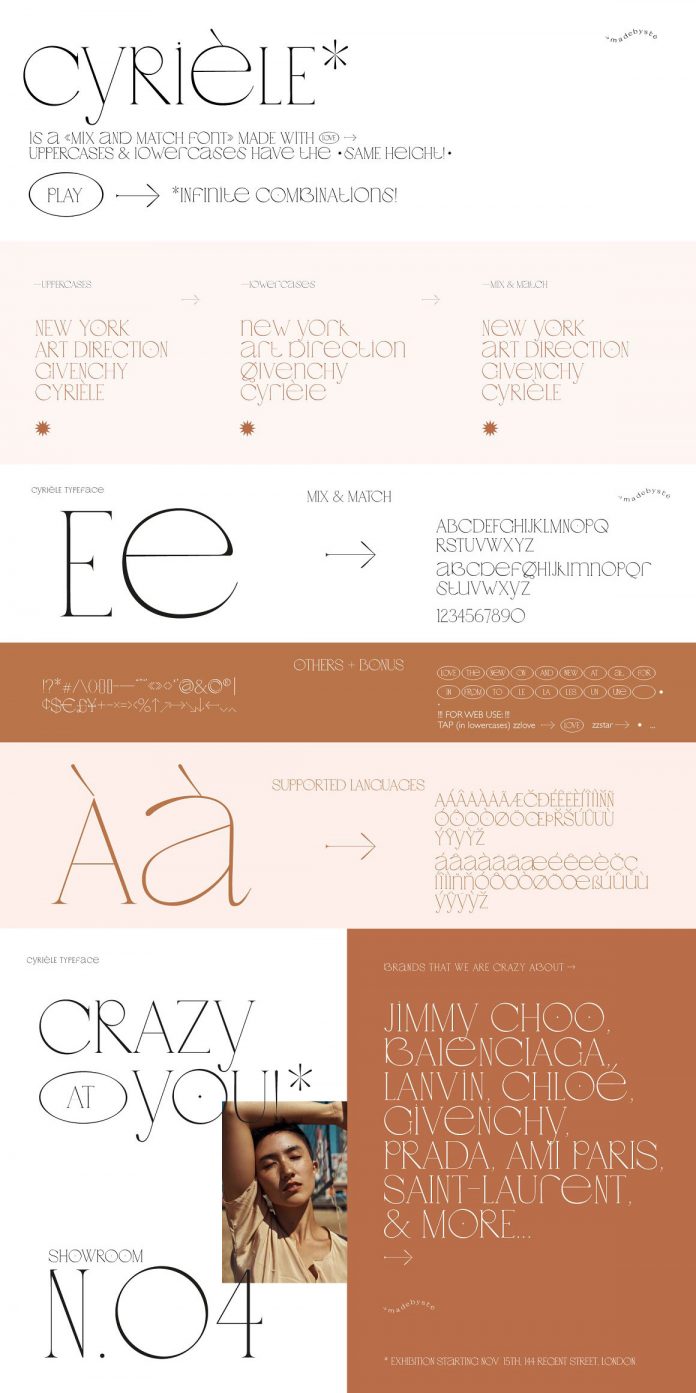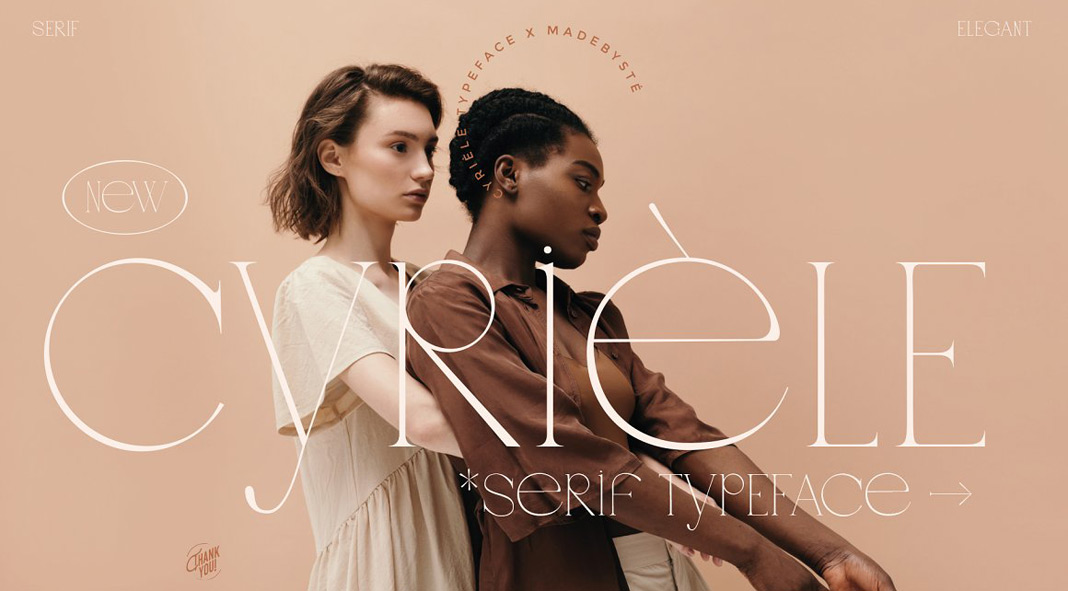
Cyriele, an elegant display serif font that offers a chic and unique appearance.
Stéphanie, an independent Swiss art director and typeface designer of Madebysté Studio has created the Cyriele font. This elegant display serif font is based on a particularly unique style caused by chic lowercases and uppercases that have exactly the same height. The typeface allows infinite lettering combinations to give your typographic work a unique look. Cyrièle also comes with plenty of stylish catchwords you can play with. We can assure you, it’s so much fun to work with this font. Just combine different catchwords or mix and match various uppercases with lowercase letters to enjoy the full potential of this unique display serif font. Cyriele is well suited for various graphic design projects as well as fashion, branding, editorial design, and web design. To learn more about this chic and modern typeface, just click on the following link.